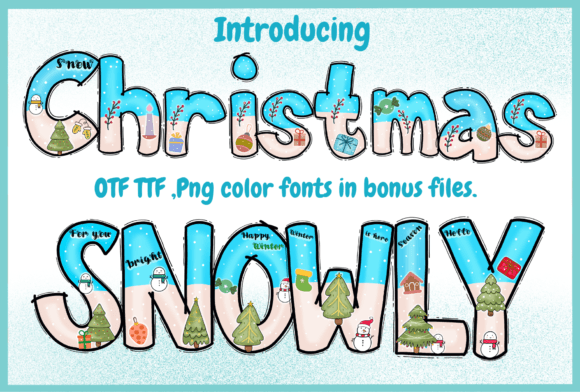
Christmas Snowly Font: A Festive and Decorative Typeface for the Holiday Season
The holiday season is upon us, and with it comes the joy of creating festive and fun designs that capture the magic of Christmas. For designers and crafters looking to add a touch of merriment to their holiday projects, the Christmas Snowly font is a perfect choice. This decorative typeface is specifically designed to bring the whimsy and enchantment of the holiday season to your text, making it ideal for holiday cards, gift tags, festive banners, and more.
What is Christmas Snowly Font?
Christmas Snowly font is a festive and decorative typeface that is designed to evoke the spirit of the holiday season. Each letter in the font is carefully crafted to incorporate intricate Christmas elements and cheerful words, creating a joyful and whimsical design. The font is perfect for anyone looking to add a personal touch to their holiday projects, whether it’s a handmade card, a festive banner, or a gift tag.
Key Features of Christmas Snowly Font
So, what makes Christmas Snowly font so special? Here are some of its key features:
- Intricate Christmas elements: Each letter in the font is adorned with intricate Christmas elements, such as snowflakes, holly leaves, and festive ribbons.
- Cheerful words: The font incorporates cheerful words and phrases throughout the design, adding to the overall festive feel.
- Whimsical design: The font has a whimsical and playful design that’s perfect for creating festive and fun projects.
- High-quality design: The font is carefully crafted to ensure high-quality design and clear readability.
Uses for Christmas Snowly Font
Christmas Snowly font is a versatile typeface that can be used for a variety of holiday projects, including:
- Holiday cards: Create personalized and festive holiday cards that are sure to impress your friends and family.
- Gift tags: Add a touch of merriment to your gift tags with this festive font.
- Festive banners: Create eye-catching festive banners that are perfect for decorating your home or office.
- Social media posts: Use the font to create festive and fun social media posts that are sure to spread holiday cheer.
Why Choose Christmas Snowly Font?
So, why choose Christmas Snowly font for your holiday projects? Here are just a few reasons:
- Unique and festive design: The font has a unique and festive design that’s sure to stand out from the crowd.
- High-quality design: The font is carefully crafted to ensure high-quality design and clear readability.
Tips for Using Christmas Snowly Font
Here are a few tips for using Christmas Snowly font in your holiday projects:
- Use it sparingly: Use the font sparingly to add a touch of festivity to your projects.
- Pair it with other fonts: Pair the font with other complementary fonts to create a unique and interesting design.
- Experiment with colors: Experiment with different colors and textures to add depth and interest to your design.
Christmas Snowly font is a festive and decorative typeface that’s perfect for adding a touch of merriment and enchantment to your holiday projects. With its intricate Christmas elements, cheerful words, and whimsical design, this font is sure to spread holiday cheer. Whether you’re a designer or crafter, Christmas Snowly font is a great choice for anyone looking to create festive and fun holiday projects.